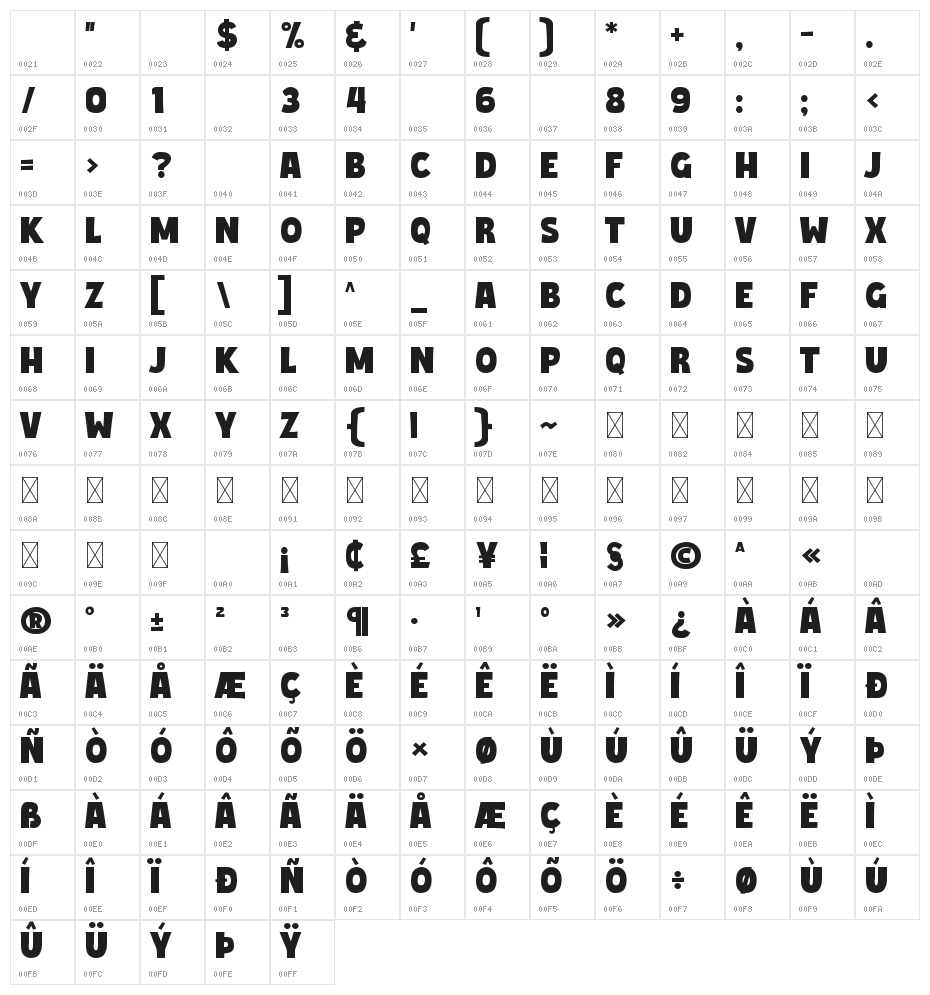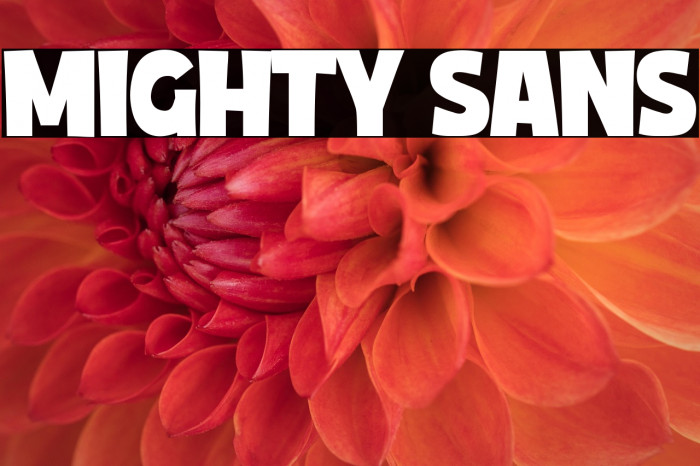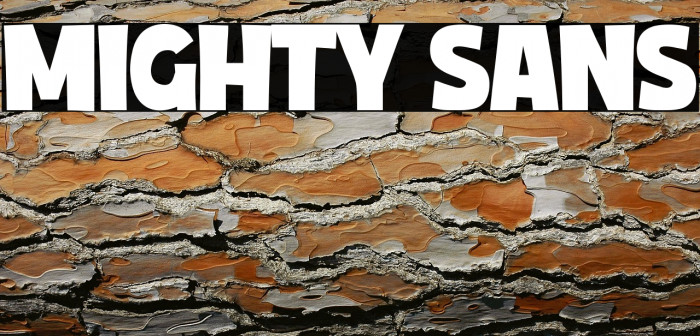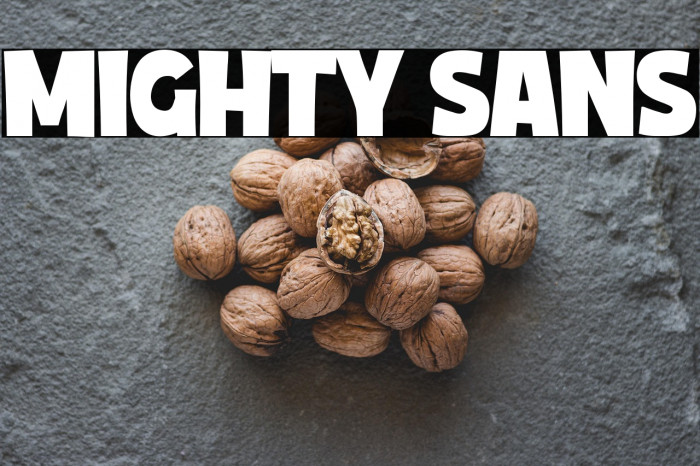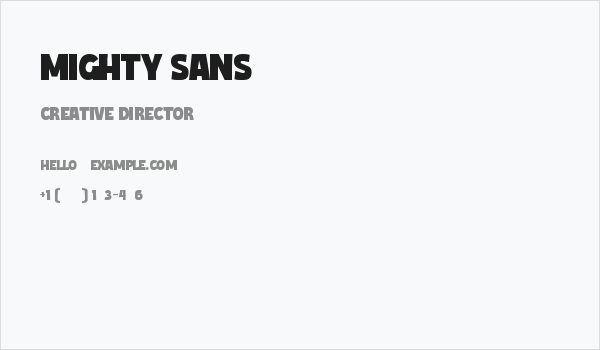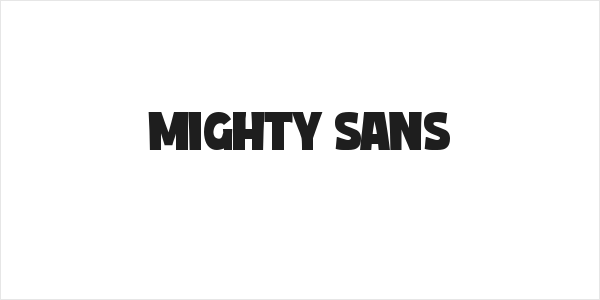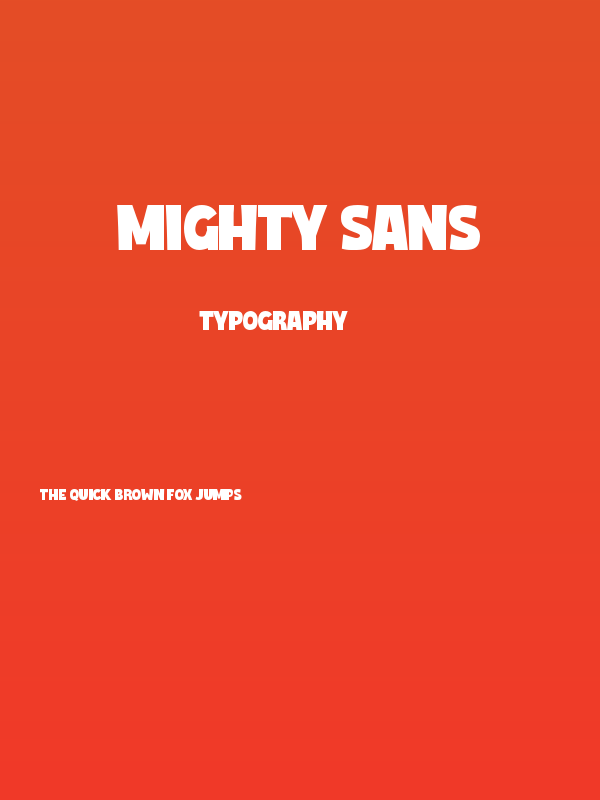
Mighty Sans Font
Mighty Sans Description
This font features bold, thick strokes with a strong presence, making it ideal for attention-grabbing headlines and impactful designs. The characters are uniformly wide, with a slightly condensed appearance that enhances readability while maintaining a robust aesthetic. The uppercase and lowercase letters are consistent in style, with rounded edges that soften the overall look. The numerals and special characters are designed to match the boldness of the alphabet, ensuring a cohesive appearance across all text. This font is perfect for projects that require a modern, assertive typeface.